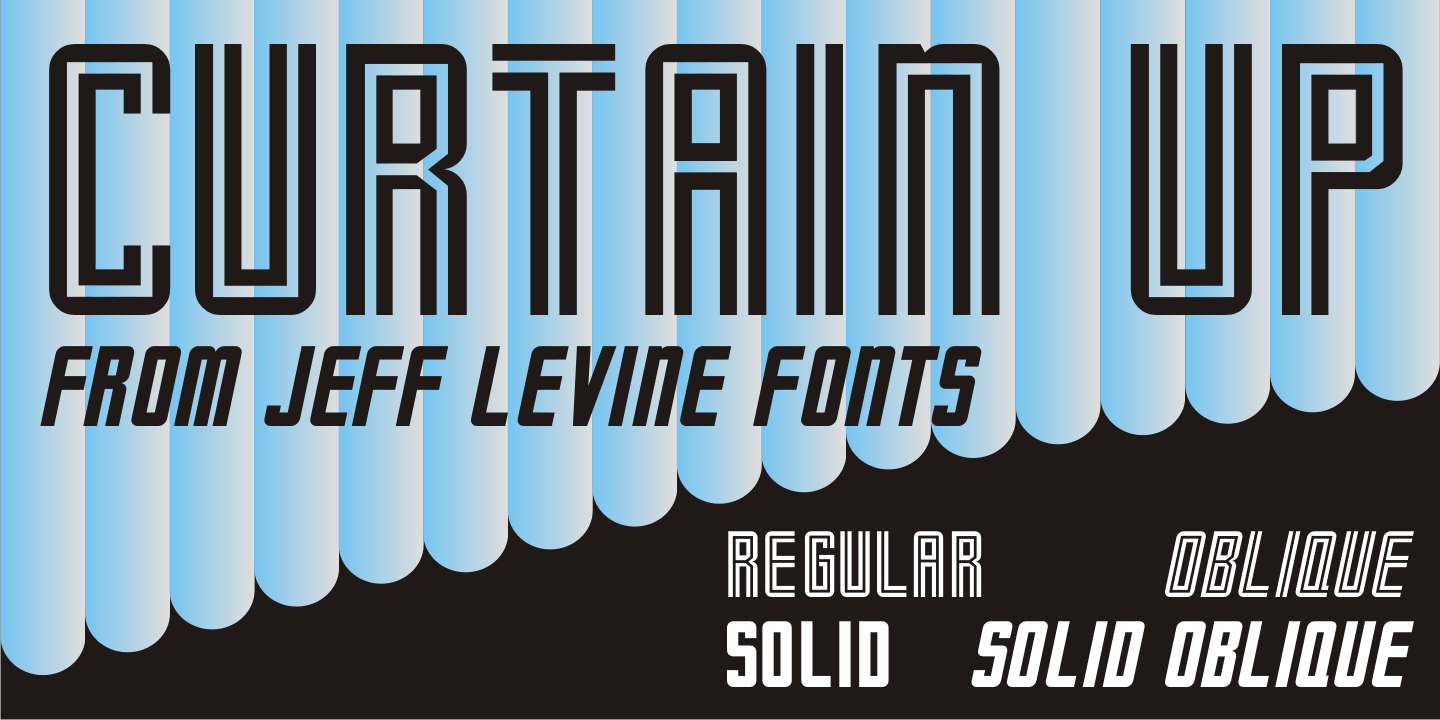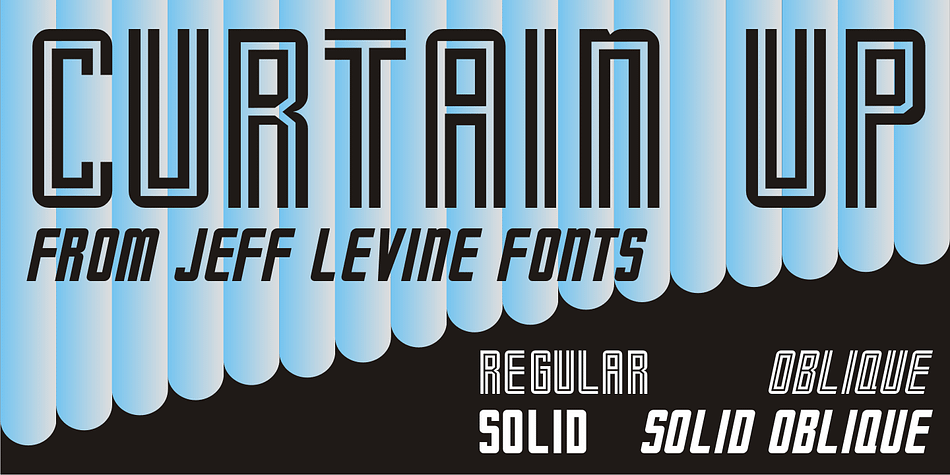
Curtain Up JNL is a display sans font family. This typeface has four styles and was published by Jeff Levine Fonts.
The 1937 sheet music for the tune “Sweet Stranger” has the title hand lettered in a round cornered Art Deco sans with an inline featuring square corners.
Now available as Curtain Up JNL, it is available in regular, oblique, solid and solid oblique versions (for those who prefer a version without the inline).